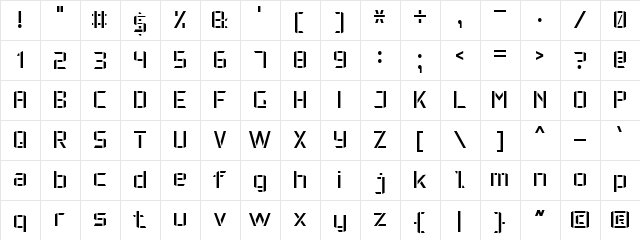
Military Font 7 Regular
Design Context for Military Font 7 Typeface
Military Font 7 draws on military and industrial lettering traditions, with forms that communicate strength and precision.
A strong choice for security brands, outdoor gear, and high-stakes visual communication.
Font Pairing: Use alongside a condensed or geometric sans for supporting copy — keep the pairing bold, functional, and free of ornament.
Pro Tip: Try Military Font 7 in all-caps for the most authentic military signage feel. It pairs well with stark, minimal layouts and muted colour palettes.